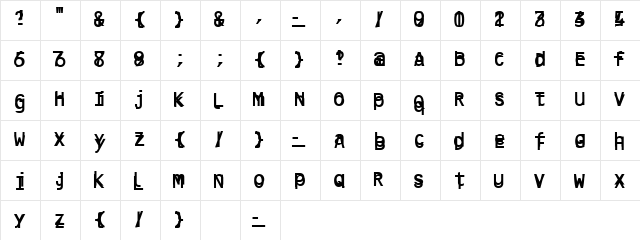
message Regular Font Preview
message Regular
message Regular Font Details
Design Context for message Typeface
message is a composed and adaptable typeface that performs quietly and consistently across a wide range of design contexts.